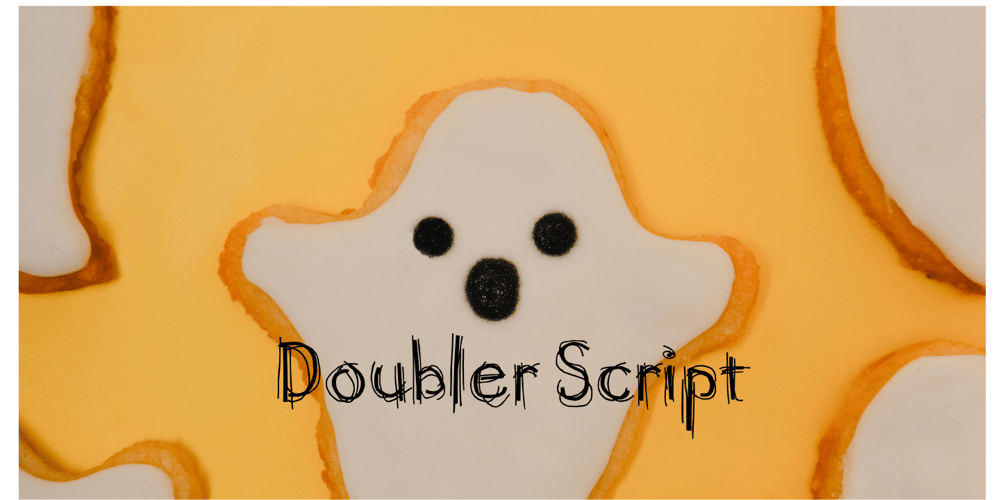
Doubler Script Font Family was designed by Andrew Smith and published by FontHaus. Doubler Script contains 1 styles and family package options. Designed by Andrew Smith, Doubler Script is a sketchy, hand-drawn, casual script that is a bouncy, playful, and light hearted headline font.